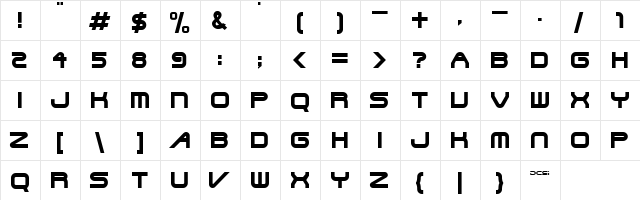
FFX Terminator Regular
Design Context for FFX Terminator Typeface
FFX Terminator is a composed and adaptable typeface that performs quietly and consistently across a wide range of design contexts.